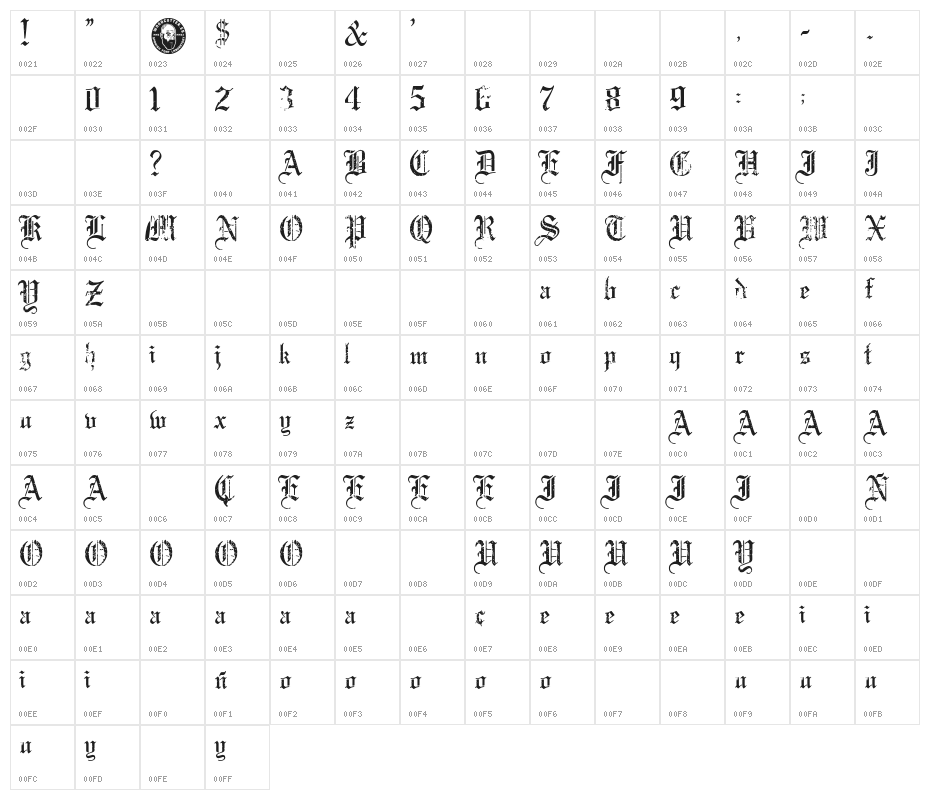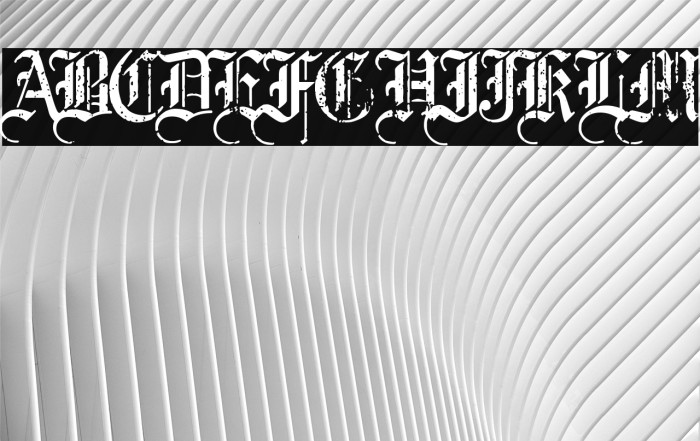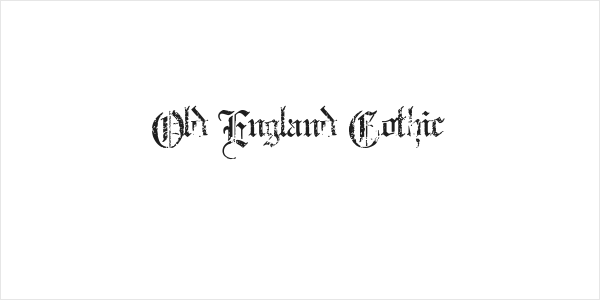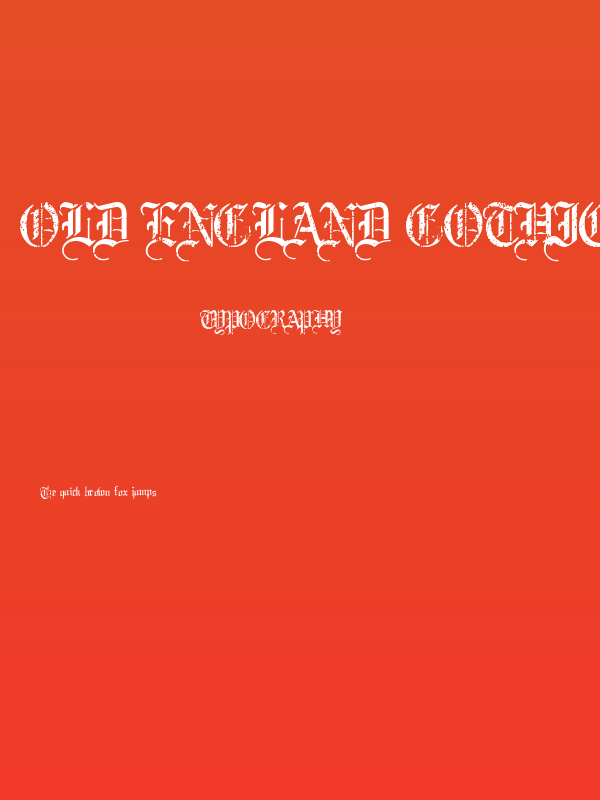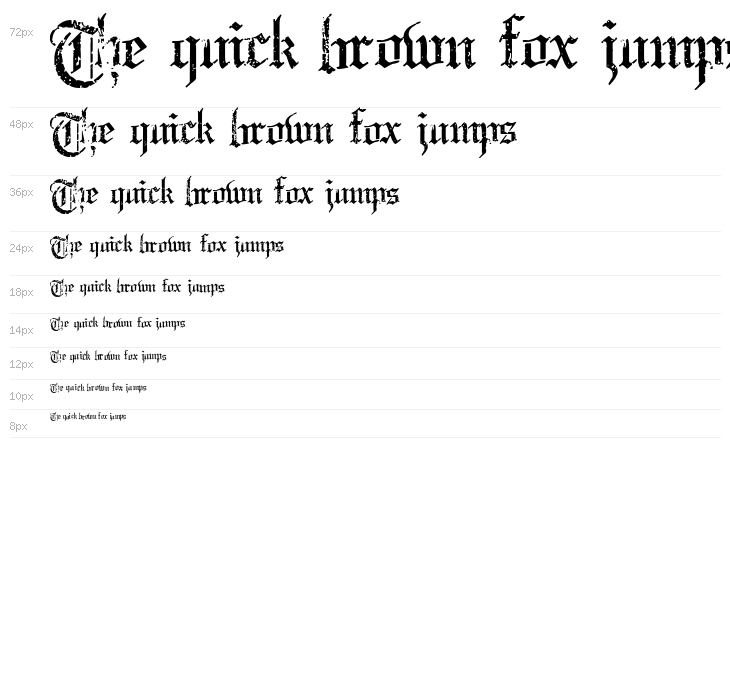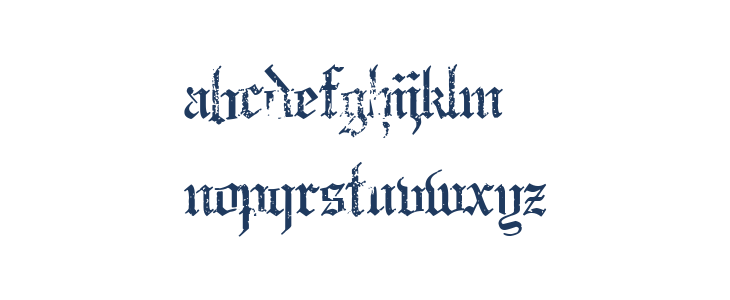
Old England Gothic Font
Old England Gothic Description
This font embodies a classic Gothic style with intricate and ornate details reminiscent of medieval script. The letters are characterized by sharp, angular lines and decorative flourishes, giving it a distinctly historical and dramatic appearance. The uppercase letters are particularly elaborate, featuring additional embellishments that enhance their visual impact. The lowercase letters maintain a consistent style, though they are slightly less ornate. Numbers and special characters are designed to match the overall aesthetic, ensuring a cohesive look across all text. This font's unique style makes it ideal for projects that require a touch of antiquity and elegance.
| Proposed Projects | Ideal for historical-themed designs, book covers, posters, and branding that requires a vintage or dramatic flair. |